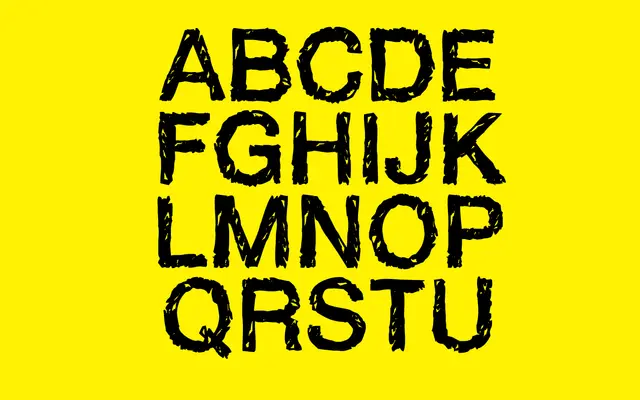
Handvetica Neue
A hand-drawn sans-serif by Cosimo Lorenzo Pancini that mimics the proportions and structure of classic modernist typefaces like Helvetica.
Designed in 2003 and updated as Handvetica Neue, the family offers Light and Regular weights alongside a condensed variant, all drawn by hand to retain an informal quality while echoing the rational geometry of mid-century Swiss sans-serifs. The glyph set covers 205 languages across Latin, Greek and Cyrillic scripts with full diacritics support. It suits branding, editorial and display work where a familiar sans structure needs a human touch.
A sans-serif drawn by hand to mimic the clean geometry of modernist sans-serifs such as Helvetica, giving it a casual yet structured character that sits between display and text use.